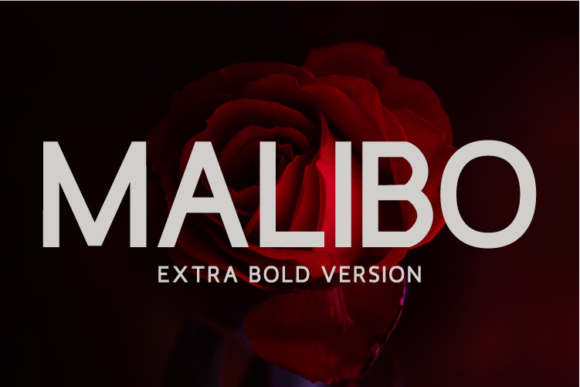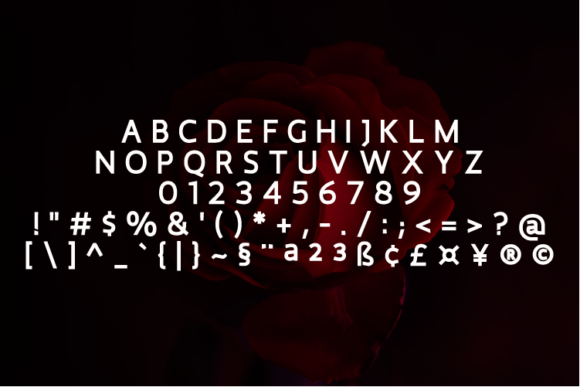
Malibo Extra Bold Font
About the Malibo Extra Bold Font
Discover the charm of Malibo Extra Bold Font. This font is a perfect blend of modern aesthetics and classic appeal. Malibo is a distinct, elegant sans serif font that blends traditional influences into a contemporary aesthetic. Its well balanced Latin details contain distinctive contrasts. Use Malibo to achieve an exquisite, yet subtle look and maximum versatility.
Malibo Extra Bold excels in headline applications, branding projects requiring a strong yet sophisticated presence, and short-form text on posters or packaging. Its elegant geometry lends itself well to luxury goods or high-end services. However, its heavier weight makes it unsuitable for extended body text or UI elements where readability is paramount.
Consider pairing Malibo Extra Bold with a clean, neutral sans-serif like Lato for body copy to maintain visual harmony. For a more contrasting approach, a delicate serif typeface like Garamond would complement its boldness, adding a touch of classic elegance. Avoid pairing it with other highly stylized fonts, which could create visual clutter.
Malibo Extra Bold projects an air of refined confidence. Its strong forms convey authority without sacrificing sophistication, making it ideal for brands aiming for a balance between modern and timeless aesthetics.
Malibo Extra Bold Font Usage Examples
Malibo Extra Bold Font Example